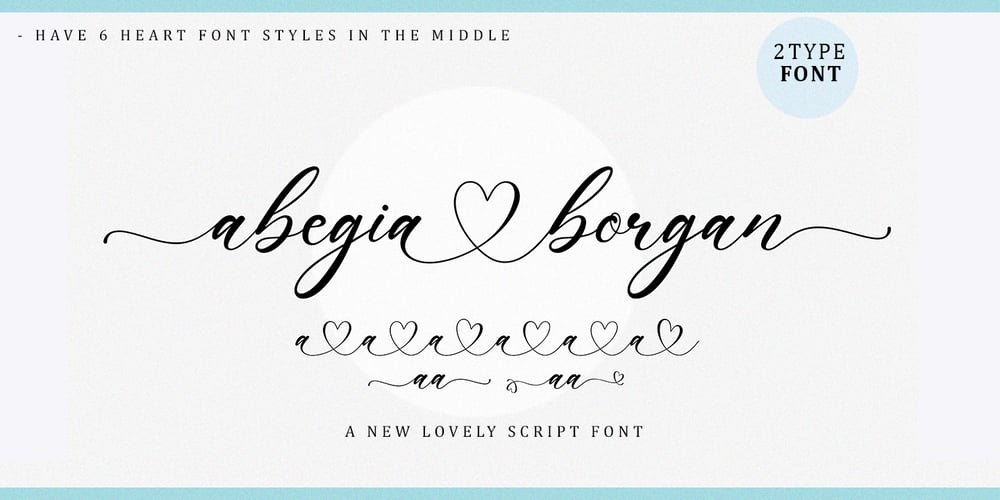
Abegia Borgan Font Family was designed by Muhammad Nazar and published by Bungletter. Abegia Borgan contains 2 styles and family package options. Abegia Borgan is a beautiful script perfect for branding, wedding invitations, and other romantic projects. This love centered look makes it perfect for use in all your design projects be it logos, labels, packaging designs, blog titles, posters, wedding designs, social media posts, Instagram designs, etc.Font Features:Lowercase letters start swash and end swash6 Styles Connect heartsYou will get : 2 type font -Regular -Bold Contains full set:-Uppercase-Lowercase-Alternative-Ligatures-Punctuation-Number-Multilingual support.I hope you enjoy this font. If you have any questions, feel free to message me :)Thank you for your purchase!